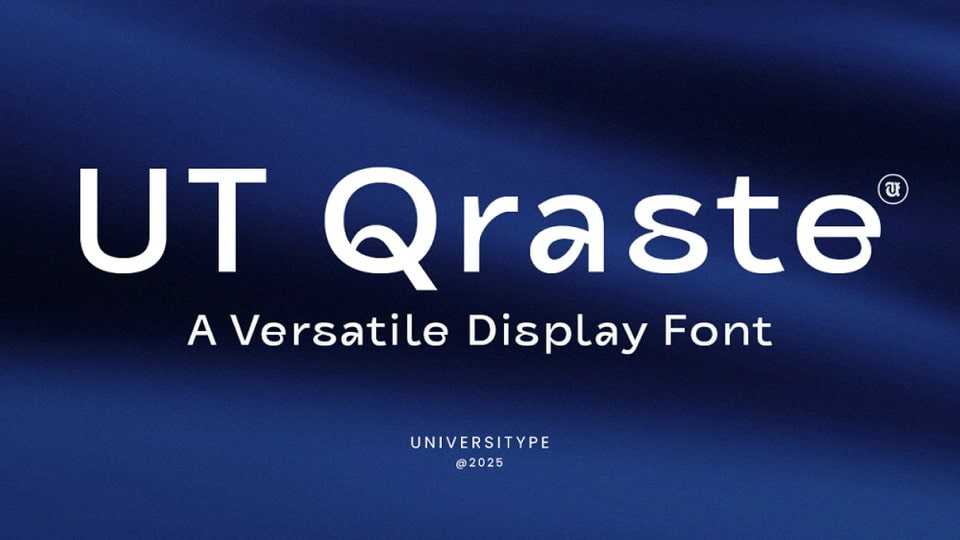
Download UT Qraste font, a bold, modern display typeface that blends geometric precision with a playful personality. Every curve, joint, and stroke has been carefully crafted to strike the perfect balance
Designer: Universitype Foundry